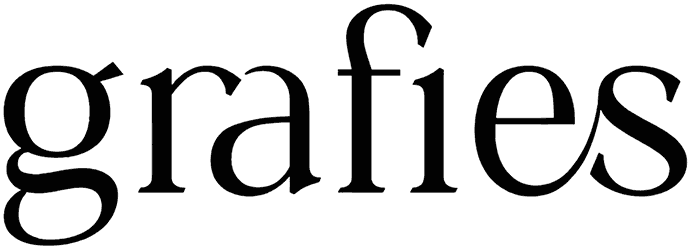
Grafies Font
Grafies is an ideal option for recreating classic writings that are easy to read. This serif font will add regular and standard characters to your collection, allowing you to implement different designs with no restrictions and be compatible with any subject.
This basic font can make you more creative and give you the courage to use any decoration in the background of your designs. With this, designing posters, ads, menus, and shop signs will no longer be difficult.